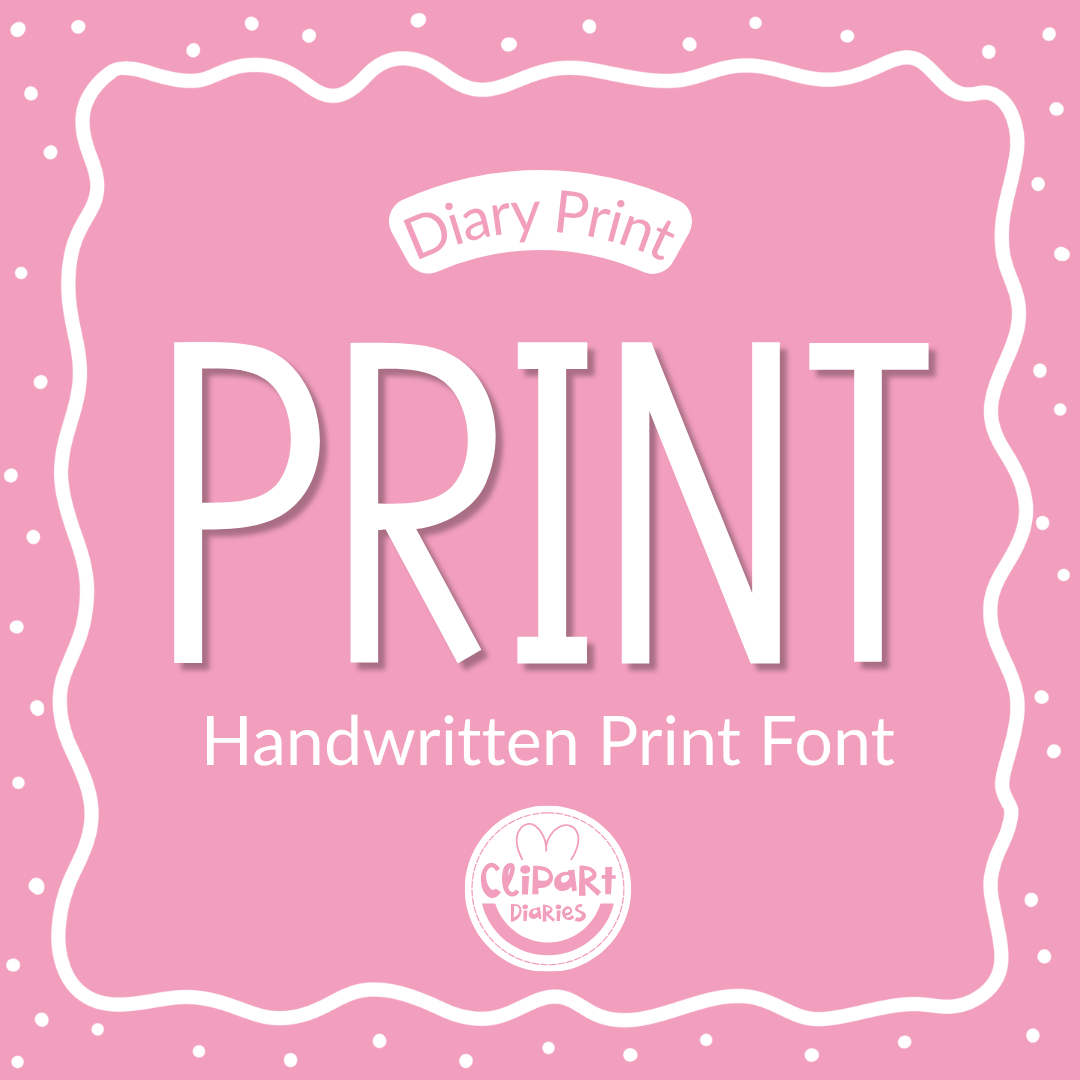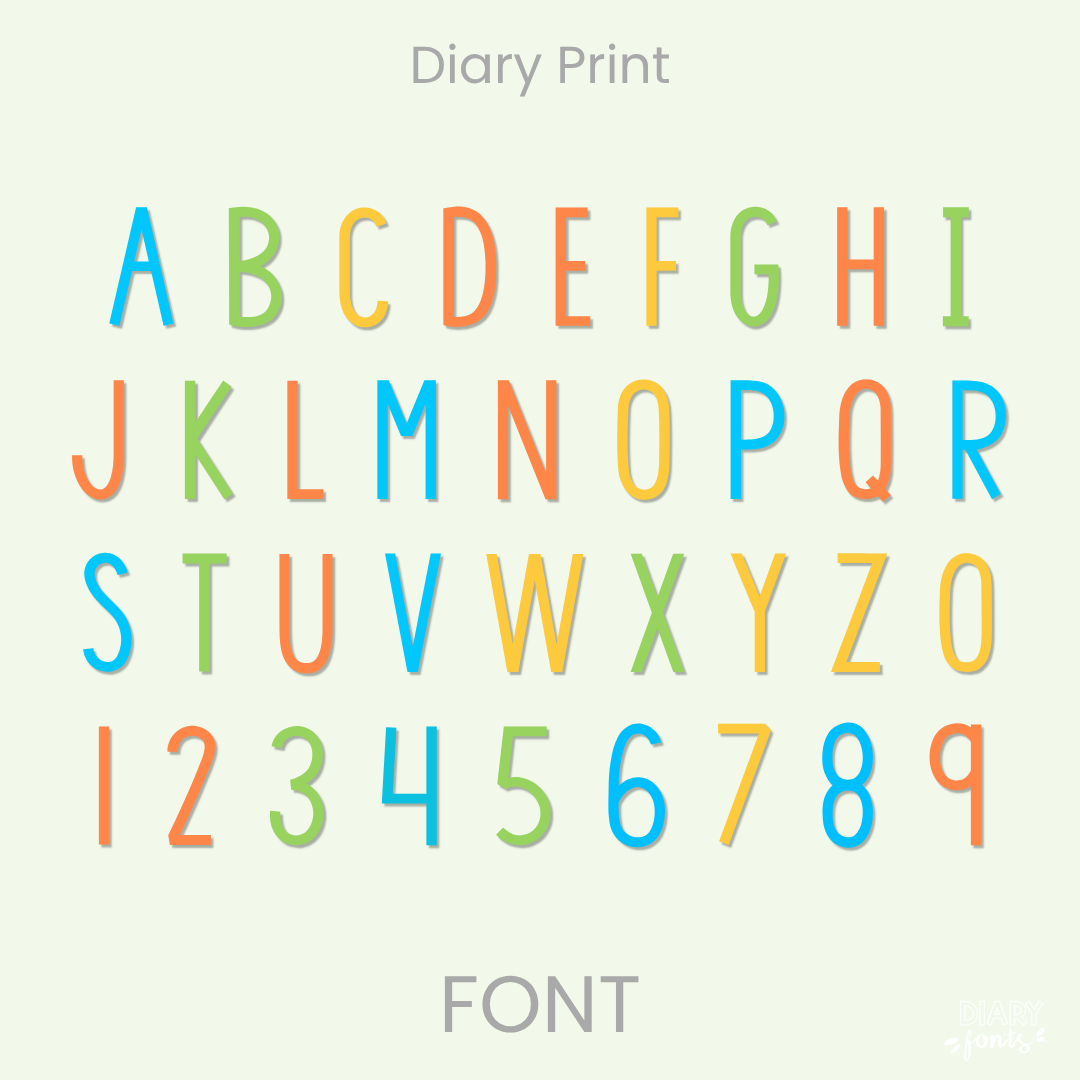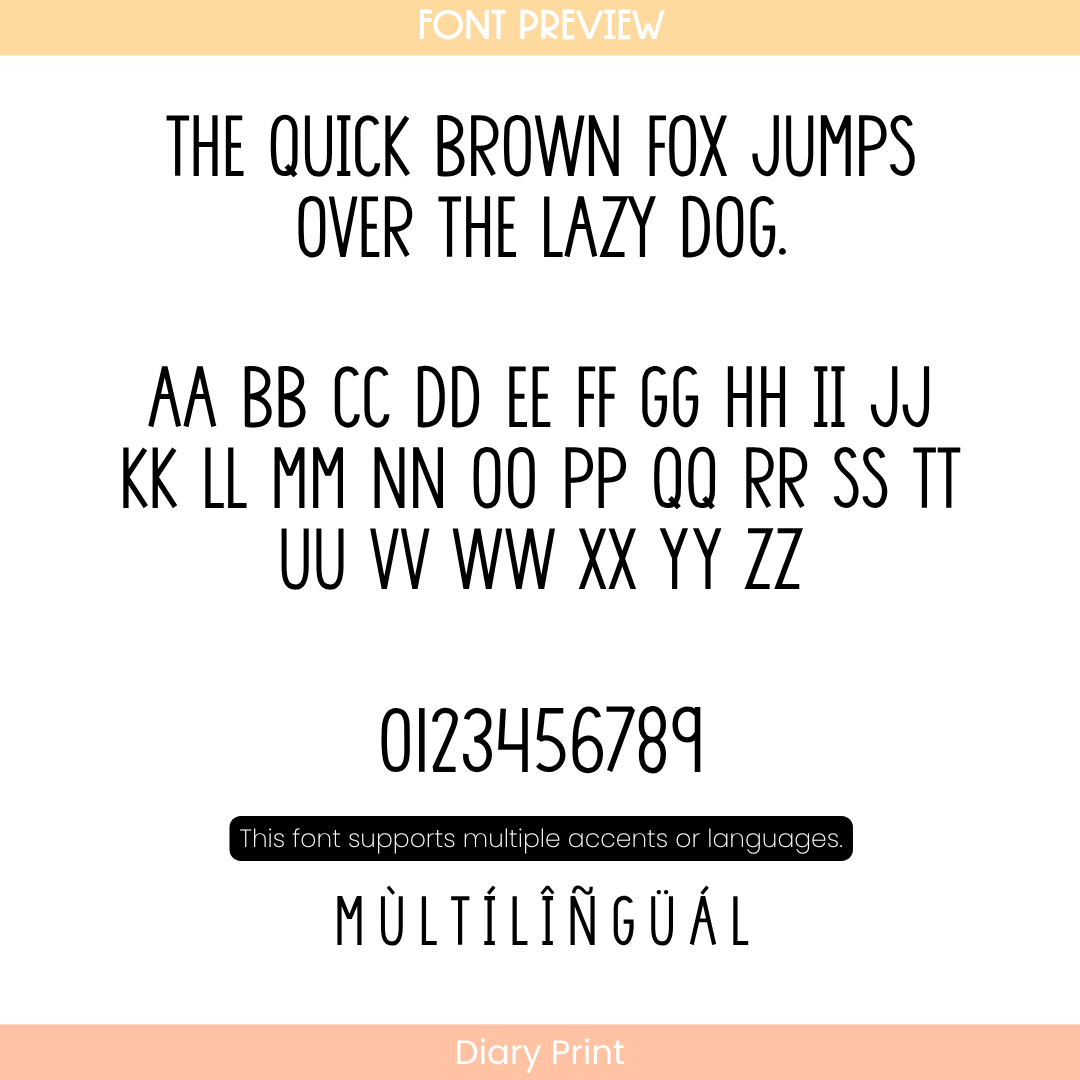
Diary Print provides a reliable and straightforward hand-drawn print style built entirely in an all-caps format. Both the uppercase and lowercase keys feature matching capital letters, ensuring that your text remains perfectly aligned, balanced, and uniform along the baseline. With its clear vertical structure and lack of lowercase ascenders or descenders, it eliminates visual clutter and delivers excellent legibility for students from a distance.
This font is a practical option for standout presentation headers, bulletin board letters, task card titles, classroom labels, and clean worksheet headings. The character set includes a full layout of capital letters, crisp numbers, and multiple accents to support different languages. It installs quickly and runs smoothly across programs like MS Office, Canva, and Adobe Apps, as well as on iPad creation tools like GoodNotes and Procreate. Whether setting up functional organizational materials for the classroom or building resources for commercial use, this typeface adds a neat, structured, and approachable aesthetic to your text.